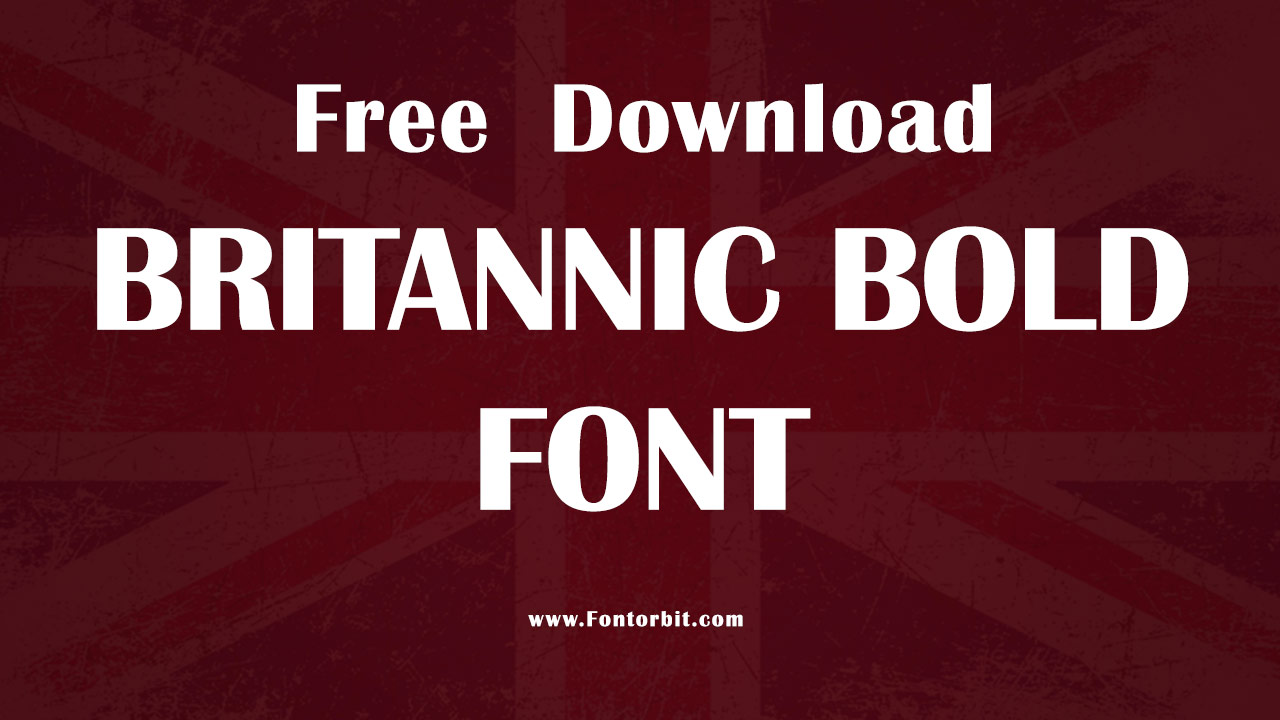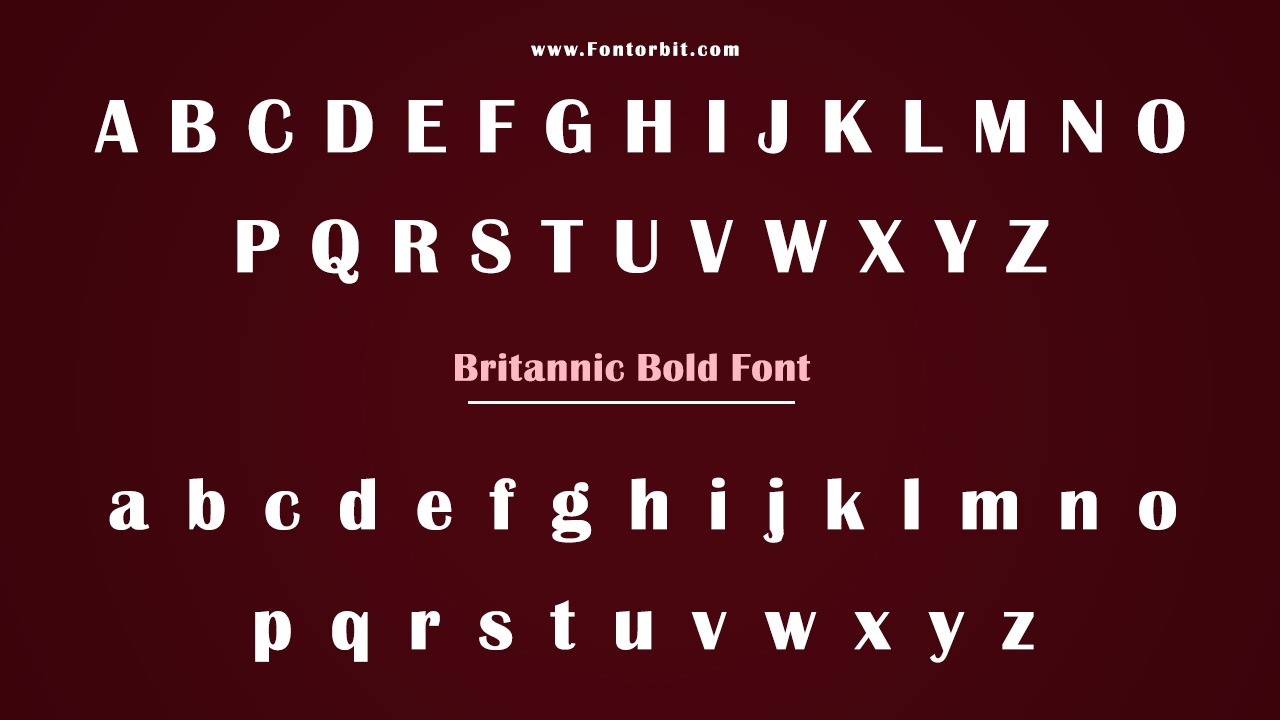
Designers recognize Britannic Bold font as a distinctive typeface known for its bold presence and versatility. Designed by Stephenson Blake and published by URW Type Foundry, it has become a favored choice among designers for its striking style. This font is part of the Britannic family and has a long history, originating from the early 20th century.
Notable Uses Of Britannic Bold
Britannic Bold has found its way into various design scenarios, such as:
- Headlines and Titles
This font can be effectively used in:
- Print Media
- Digital Media
- Event Invitations
Britannic Bold is an impressive typeface that offers both style and functionality. Its bold design ensures that your text stands out, making it an excellent choice for a variety of applications. Whether for personal projects or commercial use, this font adds a touch of sophistication.